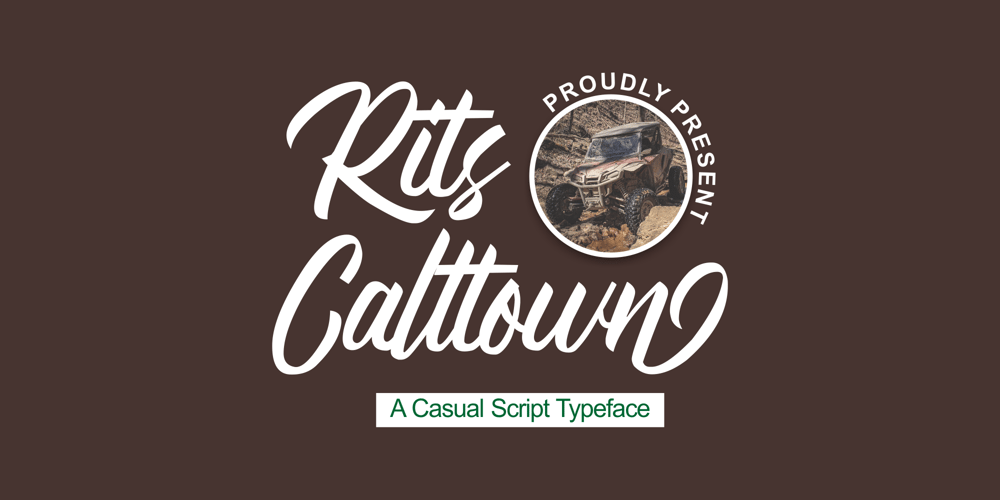
Rits Calltown
Rits Calltown font
Rits Calltown Font Family was designed by Zamjump and published by Zamjump. Rits Calltown contains 1 styles and family package options. Rits Calltown is casual script typeface. Perfect for your next creative project such as Logotype, printed quotes, invitations, cards, product packaging, headers, Letterhead, Poster, Apparel Design, Label, and etc.FEATURES :– Uppercase– Lowercase– Number– Multilingual– OpentypeFILES INCLUDED :OTF., TTF WOFF file